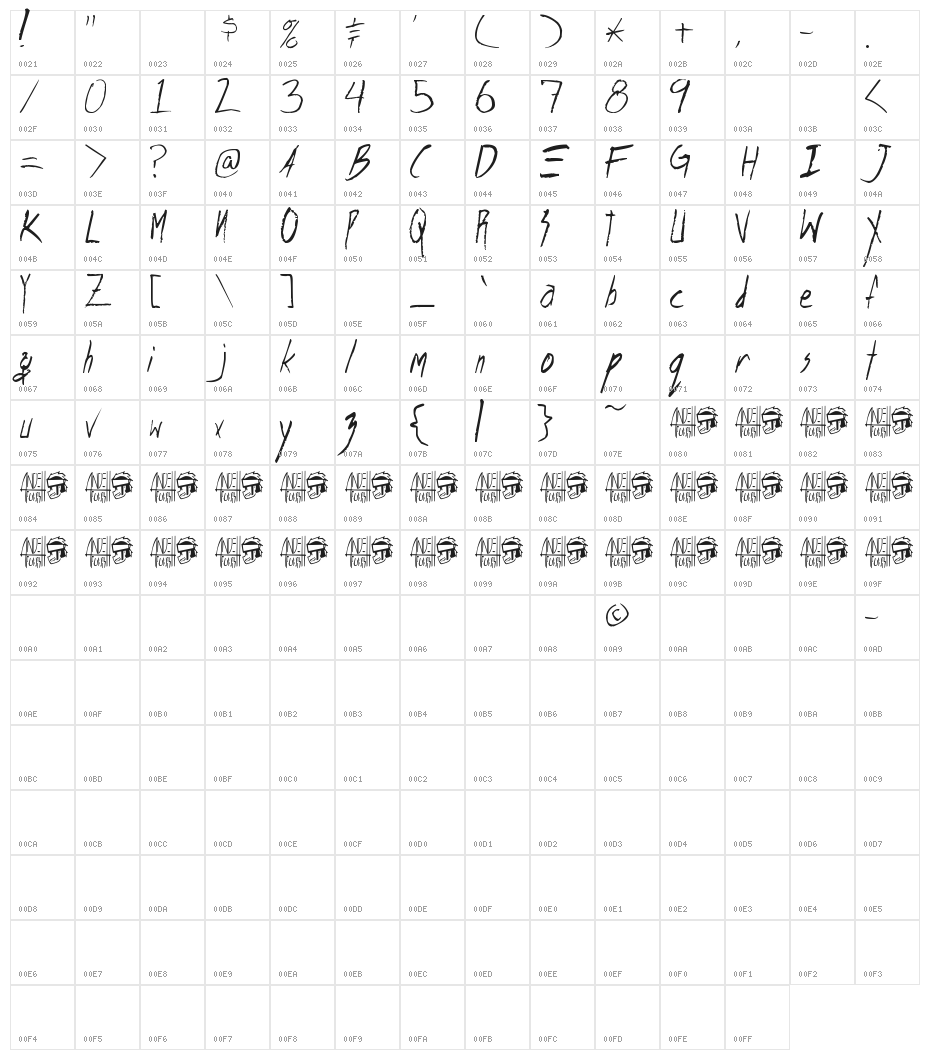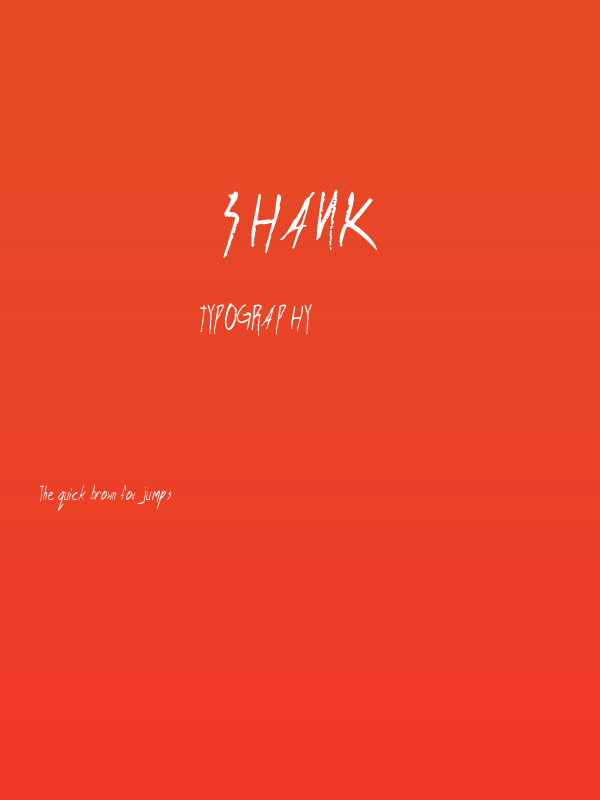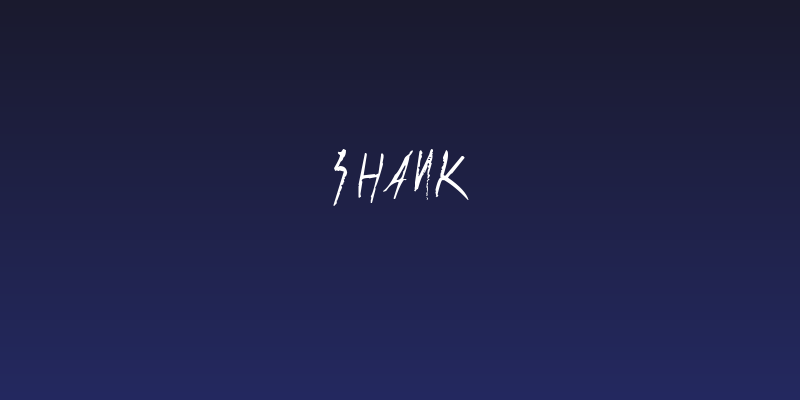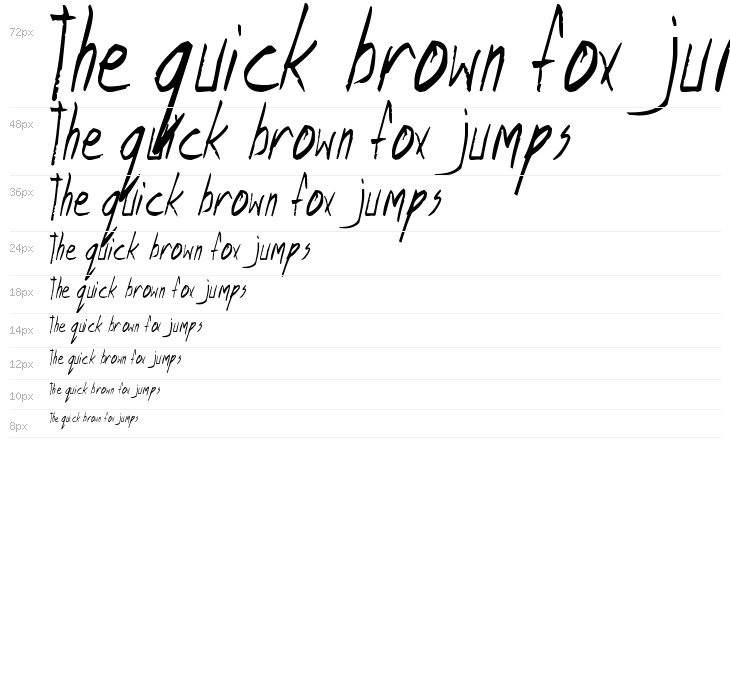
Shank Font
Shank Description
This font exhibits a raw, expressive style with a hand-drawn appearance. The characters are uneven and irregular, giving it a dynamic and energetic feel. The strokes vary in thickness, adding to its sketch-like quality. The uppercase letters are bold and prominent, while the lowercase letters maintain a consistent flow. Numbers and special characters follow the same artistic style, making the font suitable for creative and informal designs. Its unique character makes it stand out, perfect for projects that require a personal touch.
Overall StyleDecorative
Use CaseLogos, Headlines, Artistic projects
Proposed ProjectsIdeal for artistic projects, posters, album covers, and creative branding.